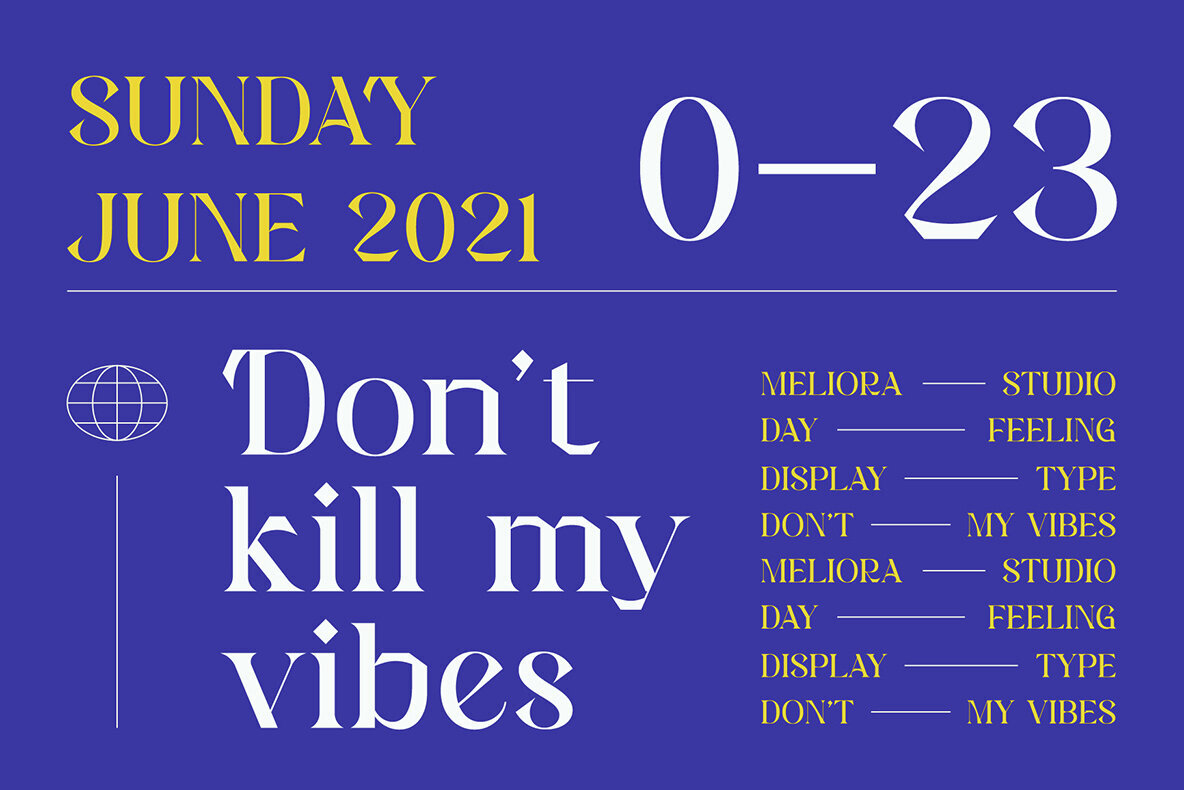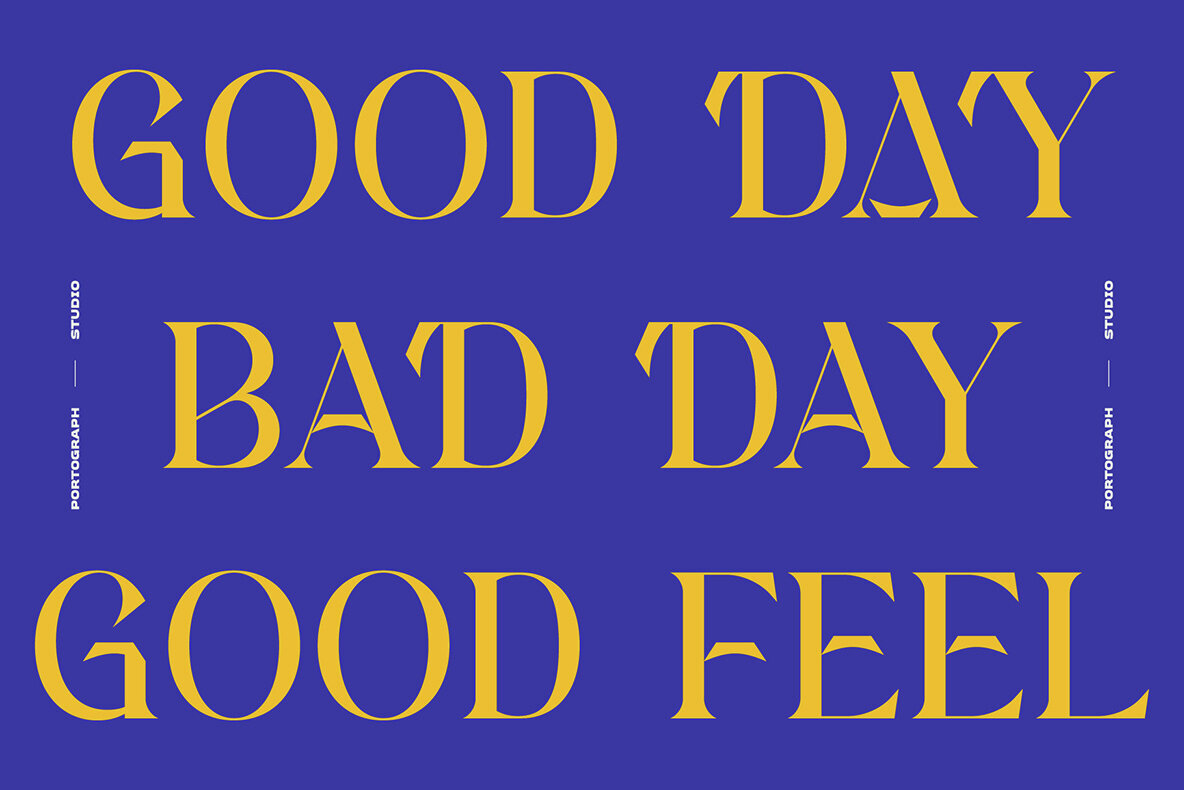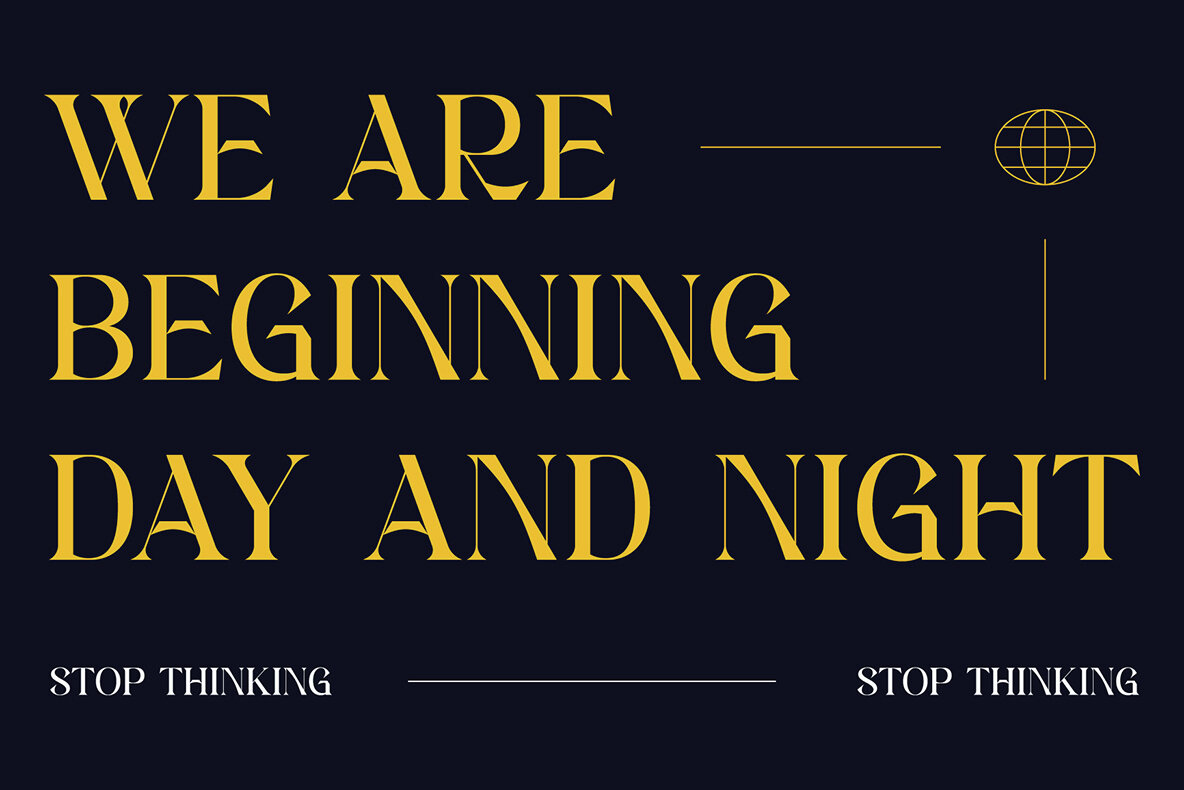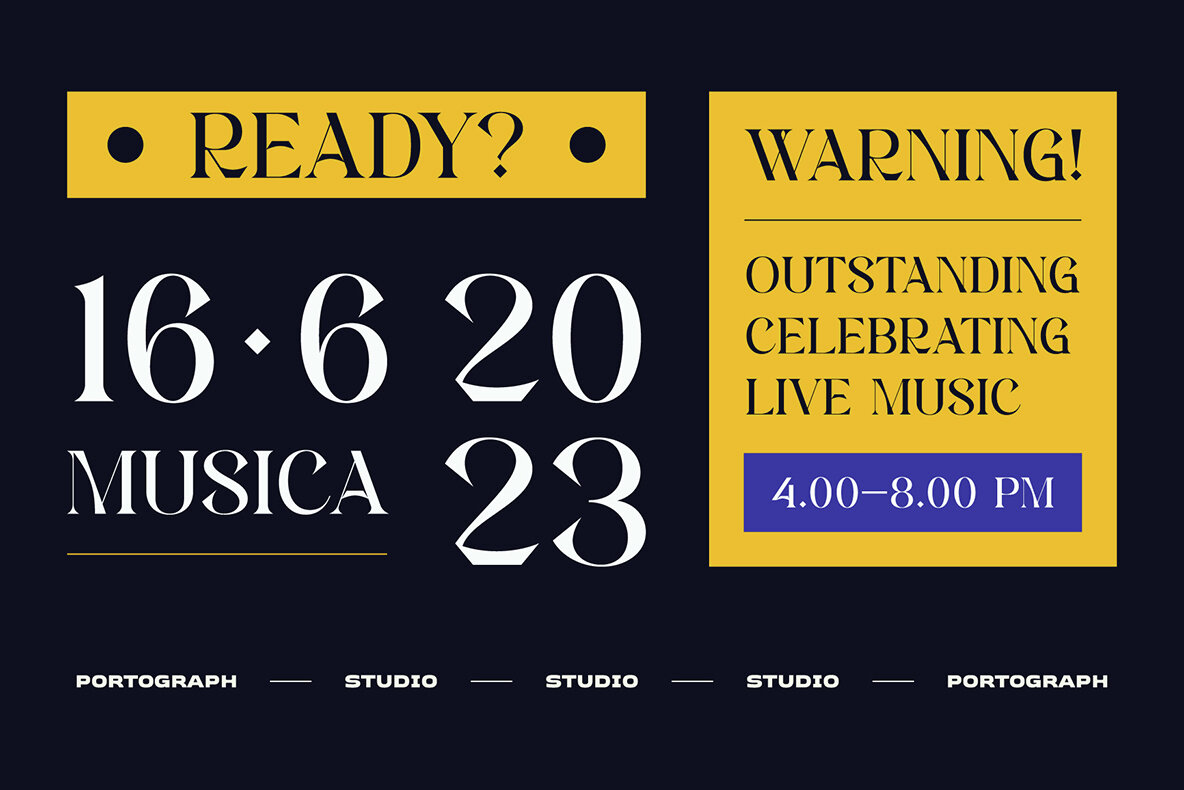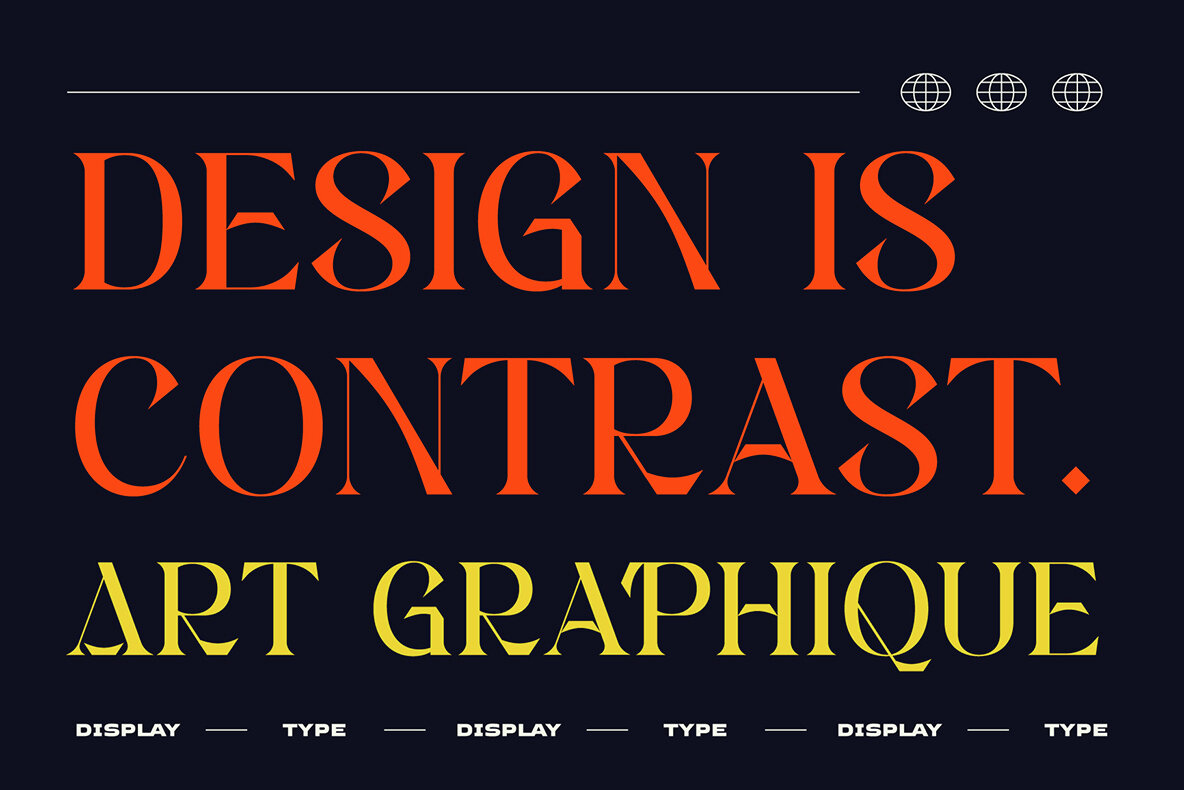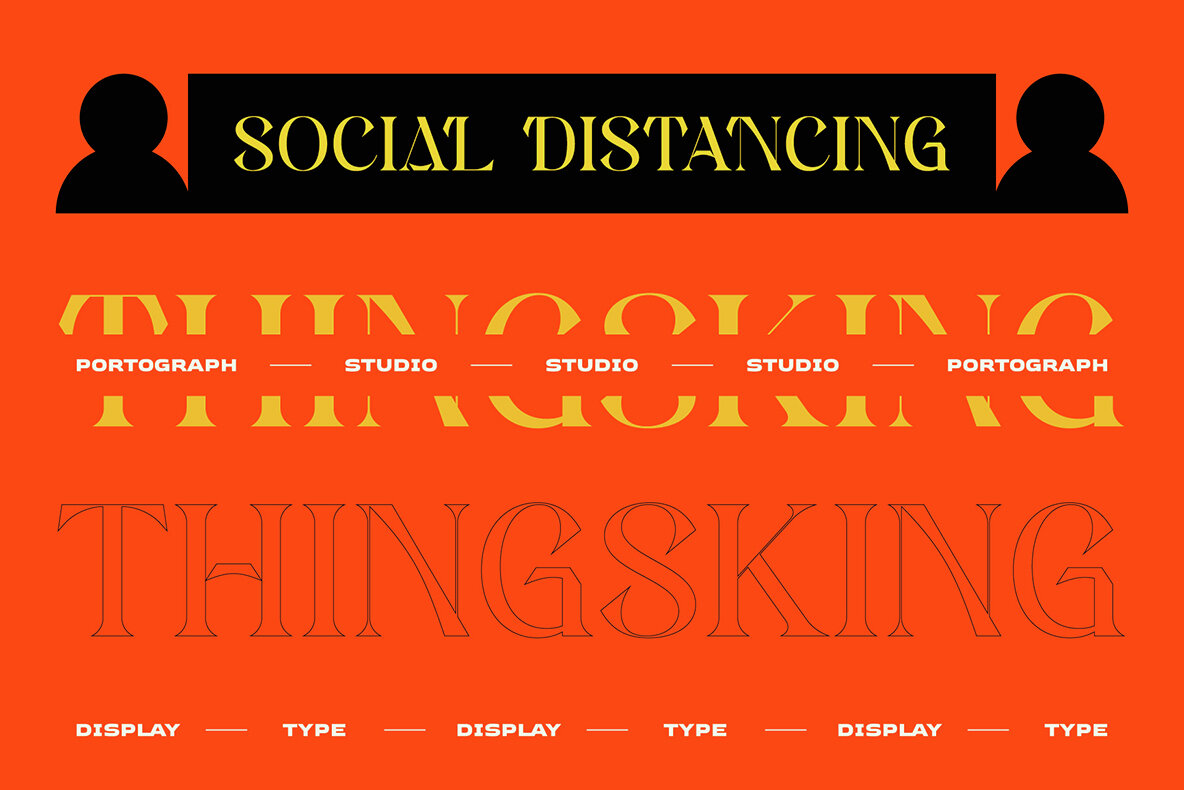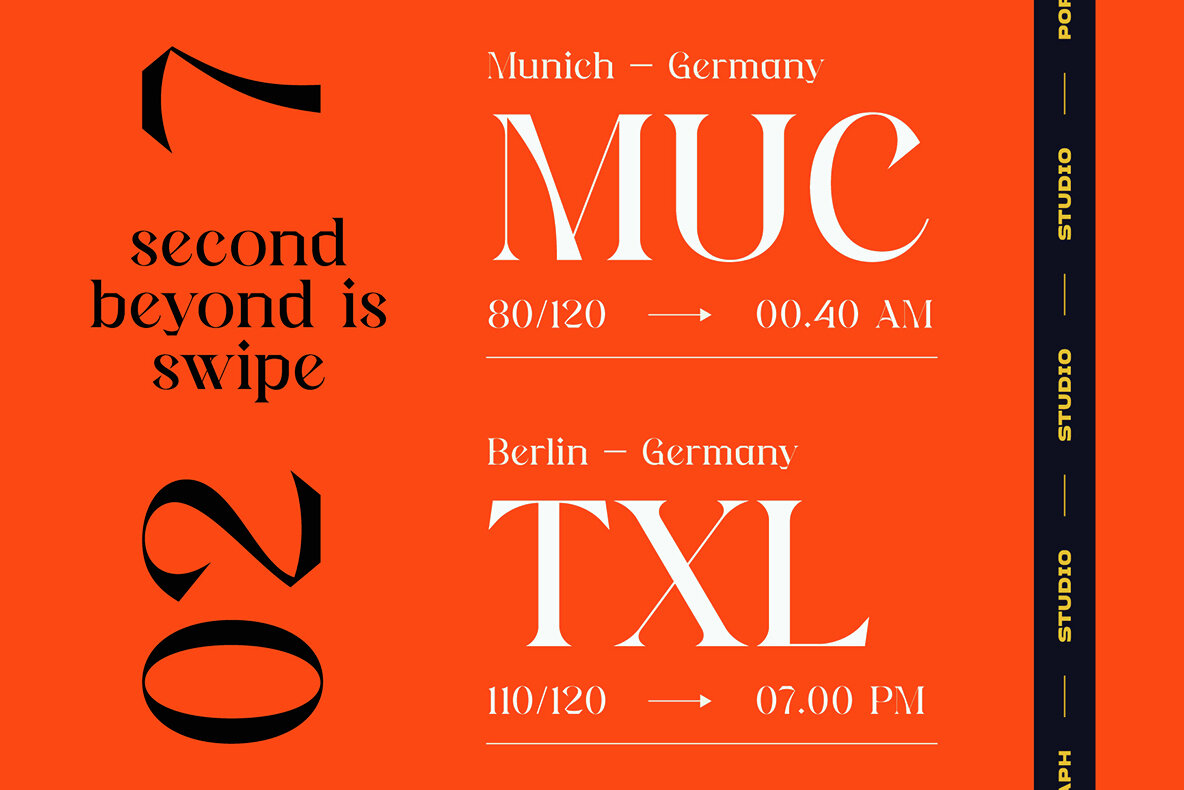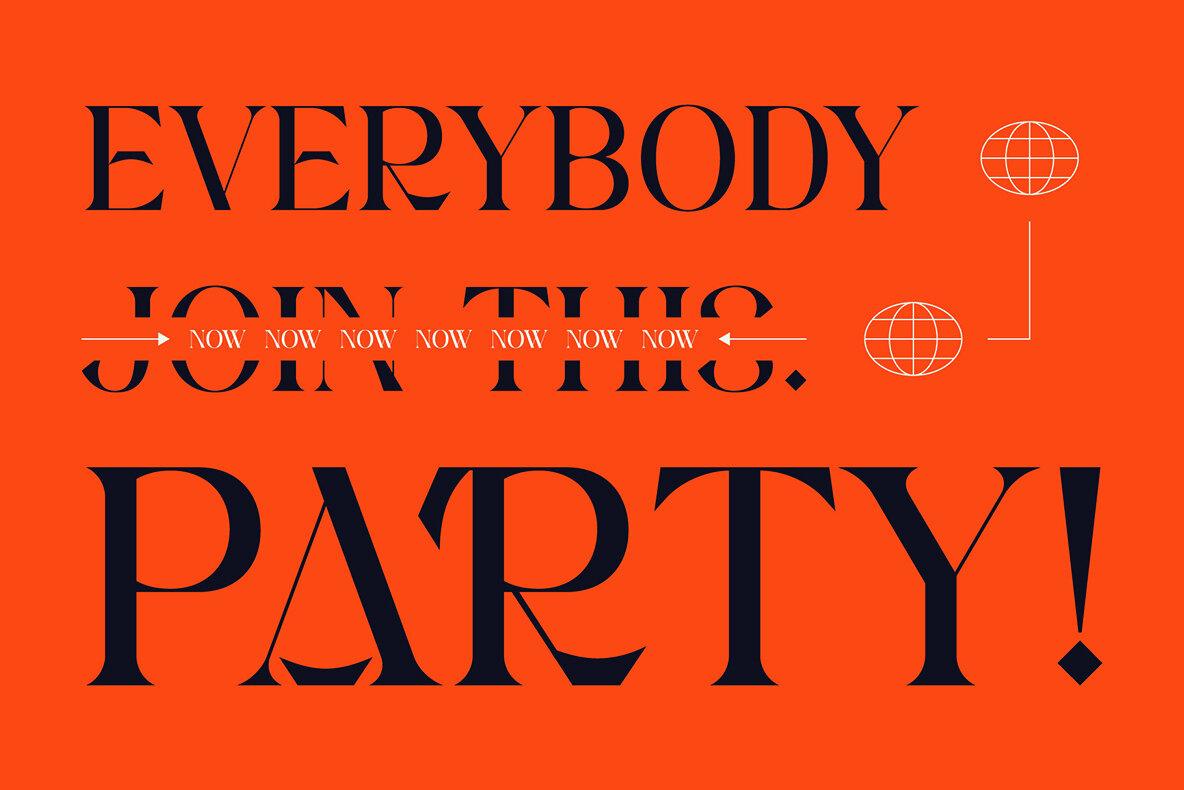
Chargoen is a serif-style font that resonates with the charm of yesteryear's athletic designs. This versatile typeface is perfect for holiday-themed projects, eye-catching t-shirt graphics, and much more.